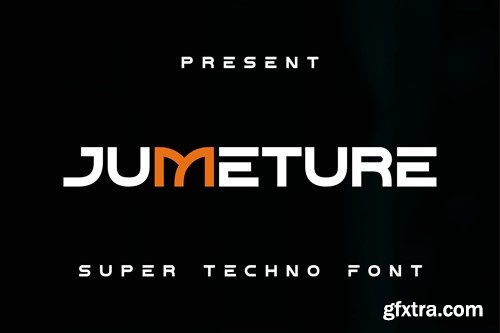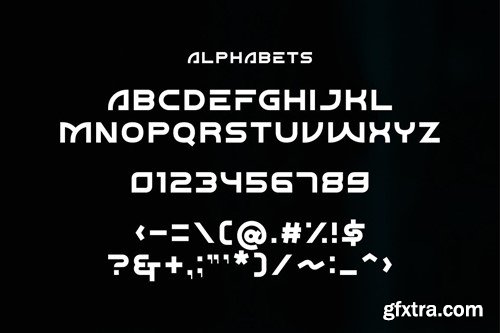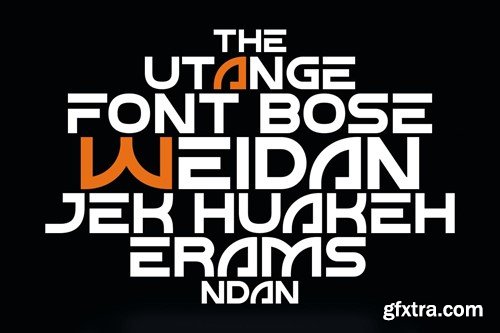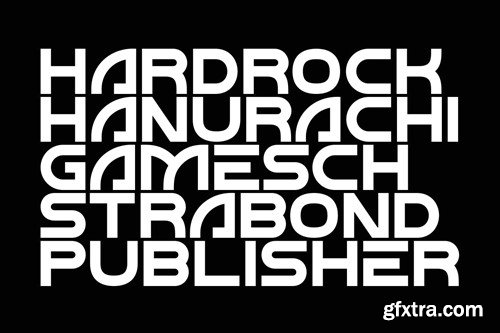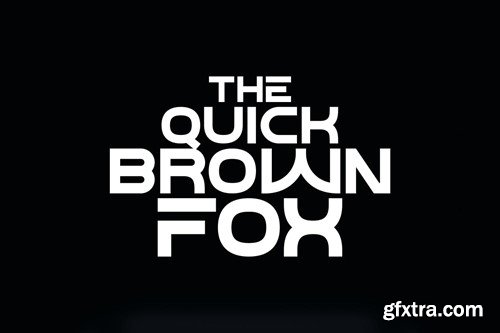
JUMETURE Font
Unveil the future through your text with 'Destiny', a futuristic font that epitomizes strength and fortitude. Destiny is expertly crafted with a solid touch that exudes a technological aura, enhancing every written piece with an undercurrent of advanced aesthetics. Striking and robust, it brings the very essence of tech sophistication to the palm of your hand, transforming every job into an unmissable digital experience. Experience the resilience of the future, one character at a time with Destiny. Available in .OTF & .TTF Formats.